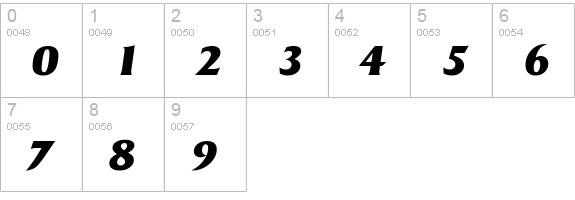
SigvarSerial-Heavy-Italic Font Details
SigvarSerial-Heavy-Italic is a heavy, high-impact, italic variant in the SigvarSerial typeface family \xE2\x80\x94 well suited to high-impact headlines, posters, and display advertising.
SigvarSerial-Heavy-Italic is a bold and striking font that commands attention with its unique blend of heavy weight and dynamic italics. Its strong, slanted design exudes confidence and sophistication, making it the perfect choice for headlines, titles, and other attention-grabbing text. The sharp, angular shapes of the letters give this font a modern and edgy feel, while the italic styling adds a touch of elegance and flair. Despite its premium quality and professional appearance, SigvarSerial-Heavy-Italic is available for free download at FontsMarket.com. This means that you can elevate your designs and projects with this standout font without having to spend a dime. Whether you're a designer looking to make a statement or a creative looking to add a touch of flair to your work, SigvarSerial-Heavy-Italic is a versatile and powerful font that is sure to impress. Download it today and see for yourself the impact it can make on your projects.